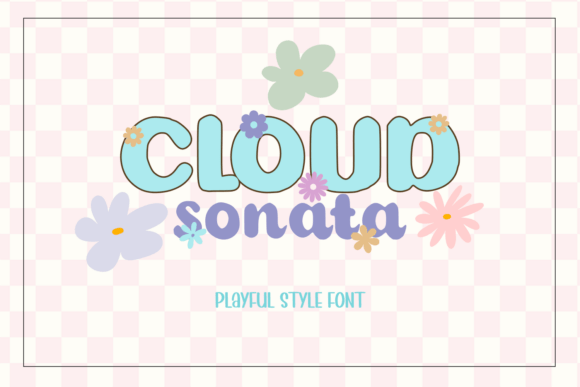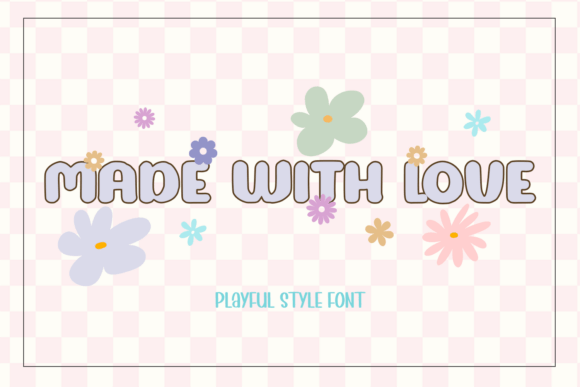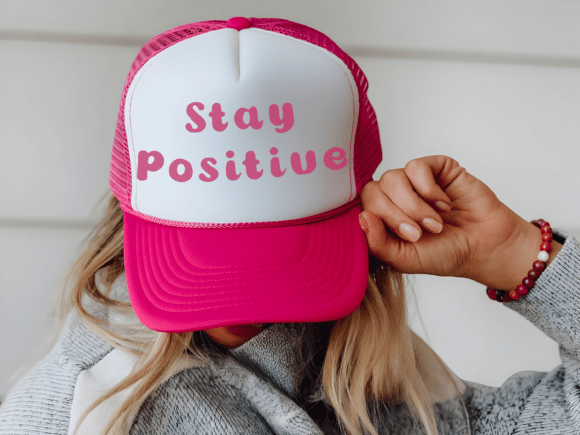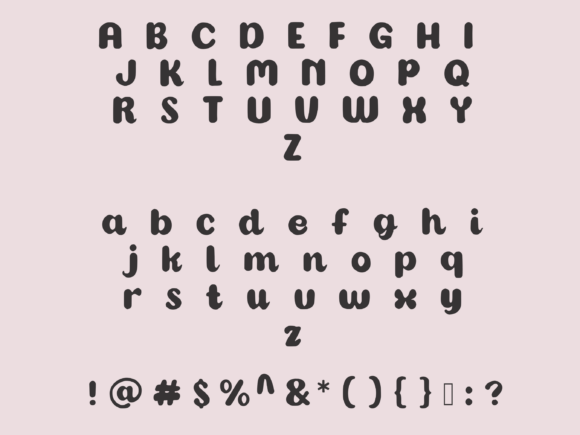
Cloud Sonata Font: Groovy 70s Retro Display Font for Cricut & Crafts
About the Cloud Sonata Font
Unleash your creativity with Cloud Sonata Font, a versatile font perfect for a wide range of applications. Cloud Sonata is an artistic groovy-style display font that floats between retro flair and gentle elegance. Its rounded, flowing letterforms and whimsical rhythm bring to mind 70s album covers, hazy sunsets, and handwritten love notes scrawled on vinyl sleeves. With a touch of psychedelic funk and a pinch of soft femininity, this font feels both nostalgic and newly alive.
Cloud Sonata excels as a display font for headlines, short text blocks on posters, and branding elements requiring a touch of retro charm. It’s ideal for projects evoking feelings of nostalgia, warmth, or gentle rebellion. Its whimsical nature makes it unsuitable for body text or UI elements where readability is paramount.
Pair it with a clean sans-serif like Montserrat for a balanced contrast, or a geometric sans-serif like Futura for a more modern feel. A delicate serif like Playfair Display could also create sophisticated elegance. Avoid pairing it with other highly decorative fonts; simpler pairings let Cloud Sonata shine.
The font’s overall personality is playful yet elegant, blending retro influences with a contemporary softness. It’s best suited for brands targeting a young adult or millennial audience interested in vintage aesthetics, music, and art.